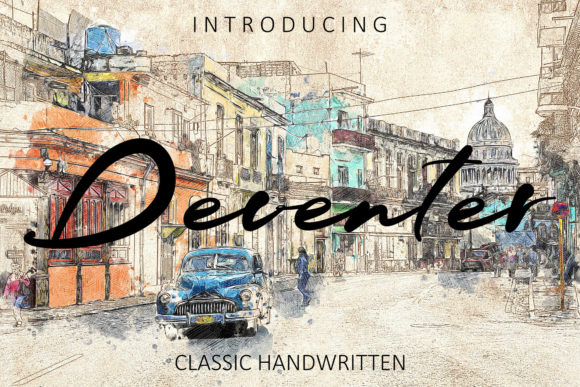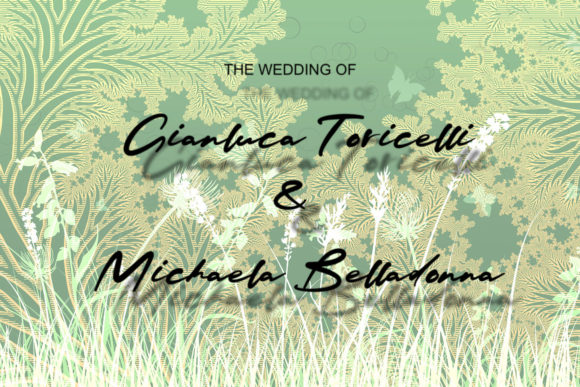
About Deventer Font
Deventer is an exquisite and timeless handwritten font that exudes elegance and class. Its classic appeal makes it a perfect fit for a variety of creative projects, whether it’s for Instagram posts or calligraphy scripts for DIY endeavors. With Deventer, every creative idea blossoms into a true masterpiece of artistry and sophistication.
The font’s elegant strokes and flowing characters add a touch of refinement to your designs. Whether you’re crafting social media graphics, invitations, or personalized gifts, Deventer elevates each project with a sense of grace and beauty.
For calligraphy enthusiasts, Deventer becomes a cherished tool. Its classic and delicate appearance brings the art of handwriting to life, allowing you to create breathtaking calligraphy scripts that captivate the eye and touch the heart.
Deventer’s versatility shines in various design contexts. From modern digital creations to vintage-inspired masterpieces, the font effortlessly adapts, adding a touch of timeless elegance to any theme or style.
Using Deventer in branding and logos imparts a sense of sophistication to your business. The font’s classic charm communicates professionalism and sets the stage for a memorable brand identity.
When used in DIY projects, Deventer becomes a true companion for your creative endeavors. Whether it’s handmade cards, crafty home decor, or personalized gifts, the font transforms each creation into a work of art that reflects your passion and creativity.
Beyond its aesthetic beauty, Deventer ensures readability, making it an ideal choice for conveying messages with clarity and elegance.
In summary, Deventer is more than just a font; it’s an elegant expression of art and creativity. Its timeless charm and classic handwritten style make it a perfect fit for a wide range of creative projects. Embrace the grace of Deventer in your designs, and witness how it turns every creative idea into a true piece of art that leaves a lasting impression on all who behold it.